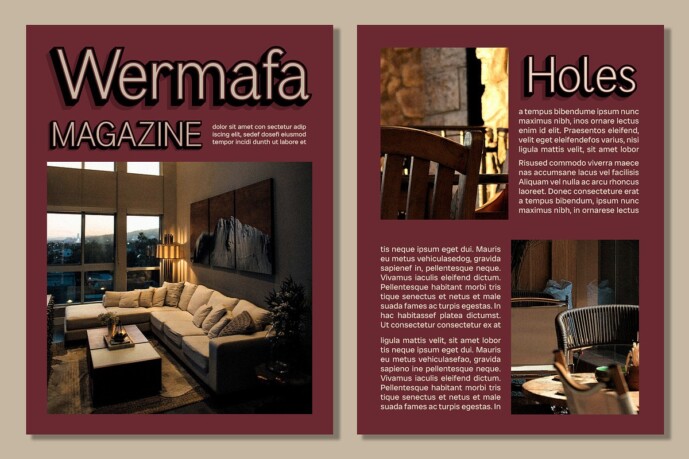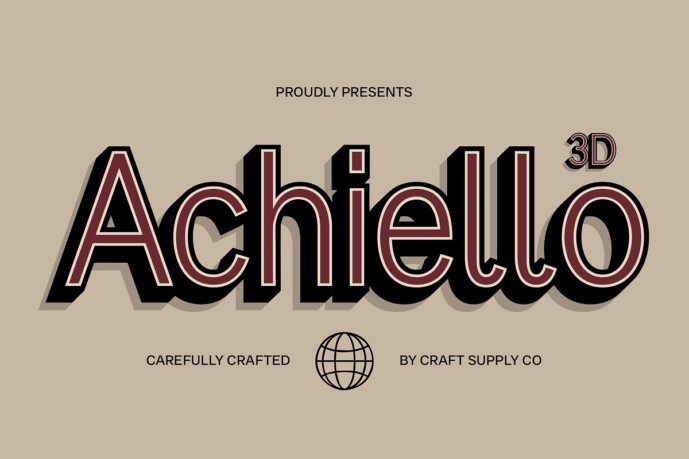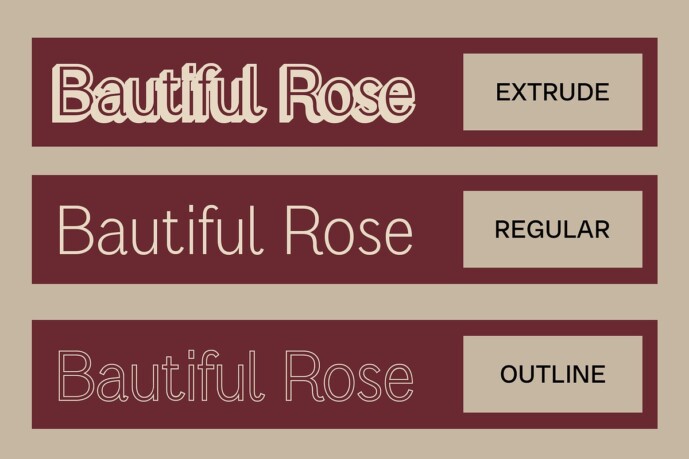
Achiello 3D Font Family
Achiello 3D Font: Modern Sans-Serif Font with Humanist Style and Dynamic 3D Effect
Humanist Style with Warmth and Readability Achiello 3D features a modern sans-serif design with a humanist style, characterized by its warm, soft, and proportional shapes. This approach enhances readability and imparts a personal touch, ensuring that the font remains approachable and easy to read across various applications.
Dynamic 3D Effect for Futuristic Depth The 3D effect applied to Achiello adds a striking visual depth, blending seamlessly with its humanist design. This effect introduces a contemporary and futuristic element, making the font stand out with its dimensional presence and dynamic appearance.
Balancing Human Warmth with Modern Innovation Achiello 3D is ideal for designs that seek to combine human warmth with modern innovation. Its balance of soft, readable shapes and cutting-edge 3D visual effects makes it perfect for projects that aim to convey both comfort and forward-thinking aesthetics.
Versatile for a Range of Contemporary Uses Whether for branding, digital interfaces, or promotional materials, Achiello 3D provides a versatile and engaging choice. Its blend of classic humanist warmth and modern 3D flair ensures a unique and effective presence in a wide range of design contexts, adding both sophistication and visual interest.